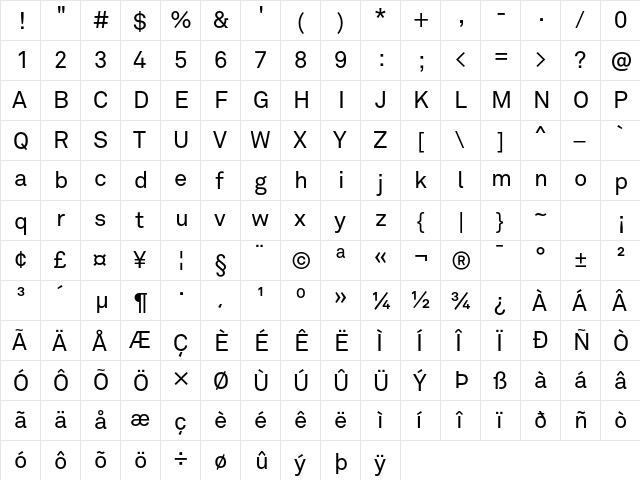
Akkurat Regular
| Foundry | Laurenz Brunner |
| Designer | Laurenz Brunner |
Design Context for Akkurat Typeface
Akkurat is a composed and adaptable typeface that performs quietly and consistently across a wide range of design contexts.